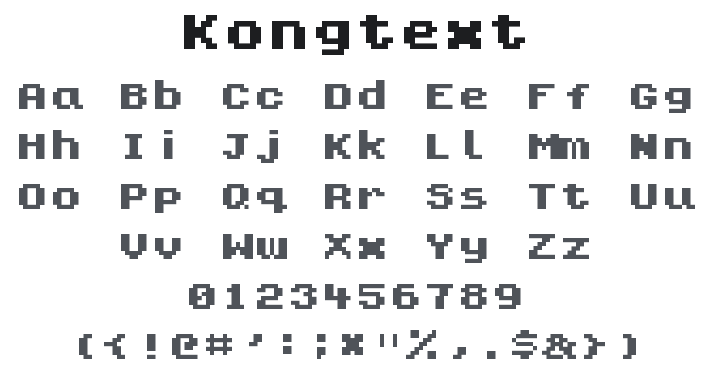
Kongtext Font
by CodeMan38
About Kongtext
Remember Donkey Kong Country for SNES? Then you'll probably remember having seen this pixel font in Cranky Kong's rants on how good games used to be...